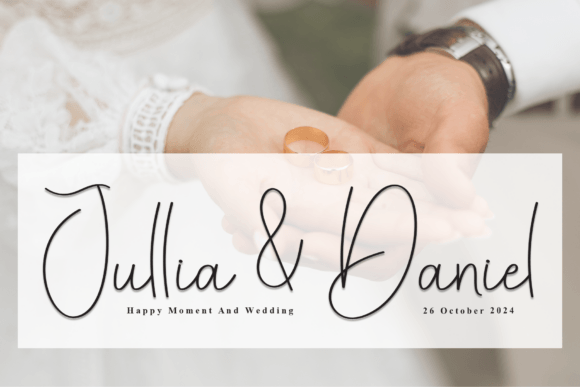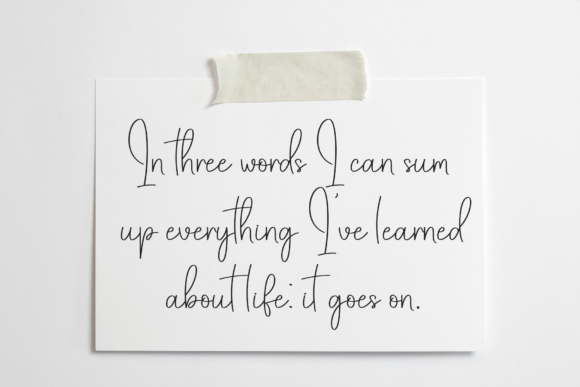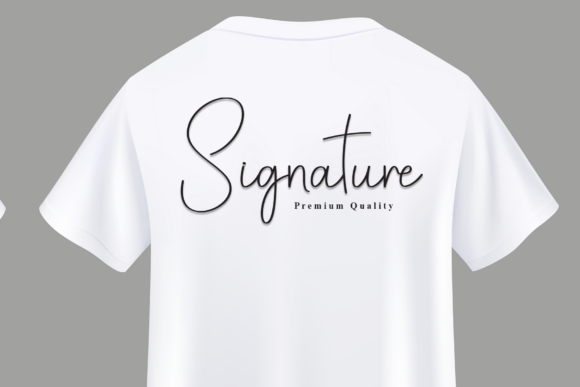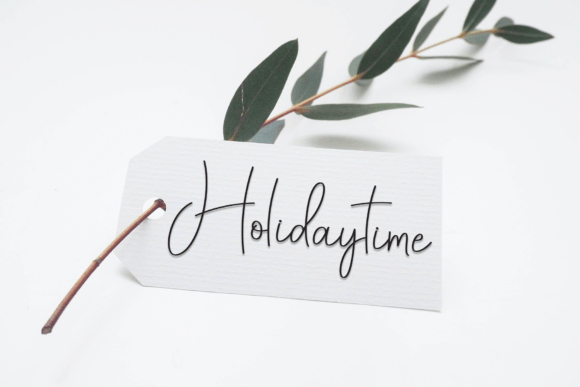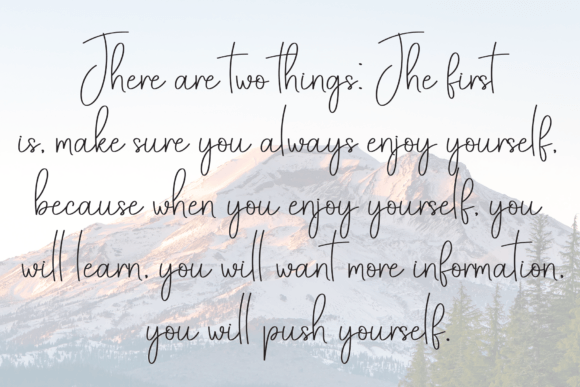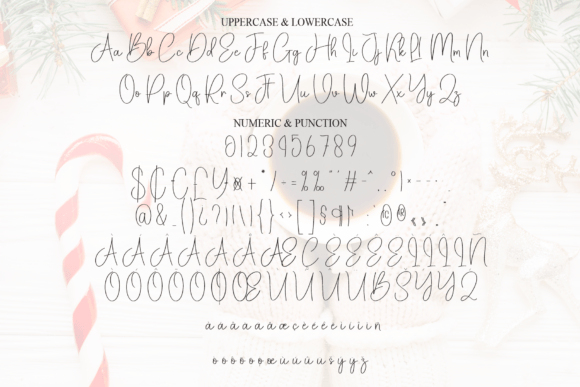
Adding a Touch of Festive Elegance to Your Designs
As the holiday season approaches, I find myself rummaging through my collection of fonts, searching for the perfect one to infuse my designs with a touch of festive flair. It’s that magical moment when I stumble upon a font that makes my heart skip a beat, and this year, it’s the Christmas Coffee Font that has captured my attention.
This beautiful script font is designed to evoke the elegance of flowing handwriting, with smooth, curvy letters that shine with style. Whether you’re creating invitations, logos, or cards, the Christmas Coffee Font is sure to add a fancy touch that will leave a lasting impression. As a designer, it’s always exciting to discover a font that can elevate your work to the next level, and the Christmas Coffee Font is definitely a valuable addition to any designer’s toolkit.
Christmas Coffee Font Key Features
- Unique Characteristics: The font features a festive, handwritten style with a warm and inviting tone, perfect for holiday-themed designs.
Designer Review: Christmas Coffee Font
As a designer, I was excited to dive into the Christmas Coffee Font, a festive and fun typeface that’s perfect for holiday projects. Here’s my honest review.
- Unique and playful design: The font’s irregular shapes and swashes give it a one-of-a-kind feel that’s sure to add some personality to your projects.
- Variety of styles: The font comes in multiple weights and styles, making it easy to find the perfect fit for your project.
- Great for social media: The font’s bold and eye-catching design makes it perfect for social media graphics, ads, and other online content.
- Not ideal for body text: While the font is great for headlines and titles, it may not be the best choice for large blocks of body text due to its irregular shape and size.
- Limited language support: The font may not support all languages or character sets, which could limit its use in certain projects.
Overall, the Christmas Coffee Font is a fun and creative typeface that’s perfect for holiday projects and other festive designs. While it may have some limitations, its unique design and variety of styles make it a great choice for designers looking to add some personality to their work.
Christmas Coffee Font: A Practical Application Guide
The Christmas Coffee Font is perfect for:
- Creating festive holiday cards and invitations.
- Designing holiday-themed social media graphics.
- Adding a touch of whimsy to your holiday marketing materials.
For the best results, use the Christmas Coffee Font in conjunction with bright, bold colors and playful graphics.